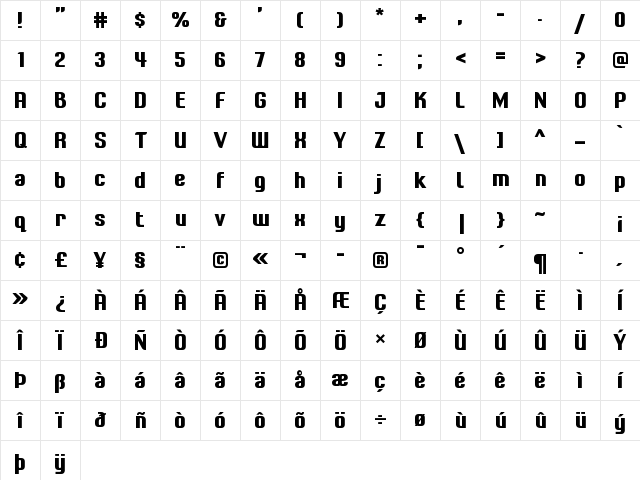
LT Energy is a composed and adaptable typeface that performs quietly and consistently across a wide range of design contexts. Its bold stroke weight gives it real presence on the page.